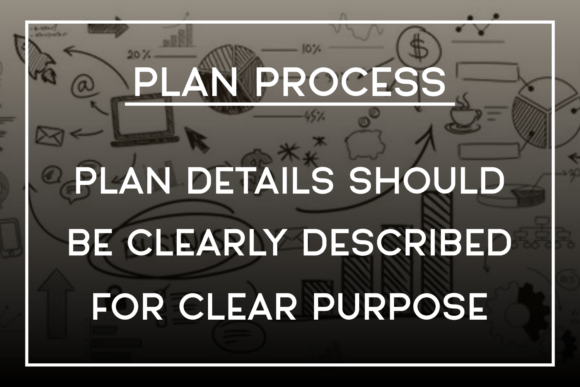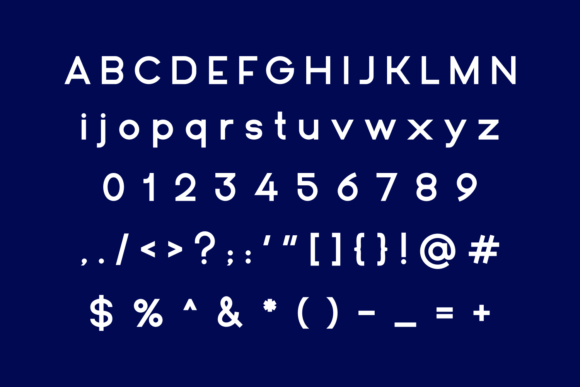
Introduction to Guferis Font
Guferis is a cool and unique sans serif font.
Key Features of Guferis Font
Why Choose Guferis Font?
Guferis Font offers exceptional quality and versatility, making it a valuable addition to your design toolkit. Whether you’re creating for personal projects or commercial use, Guferis Font delivers professional results.